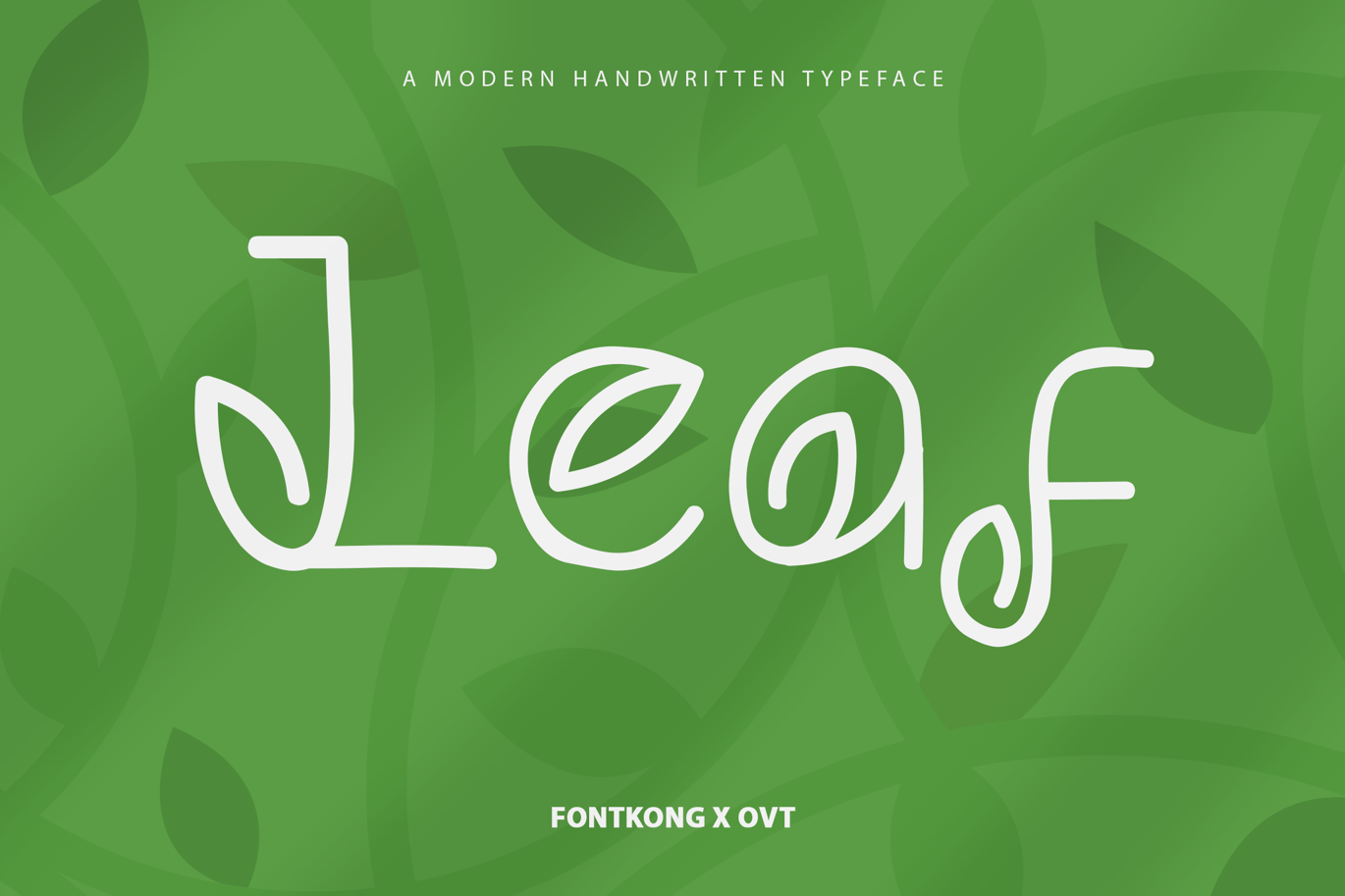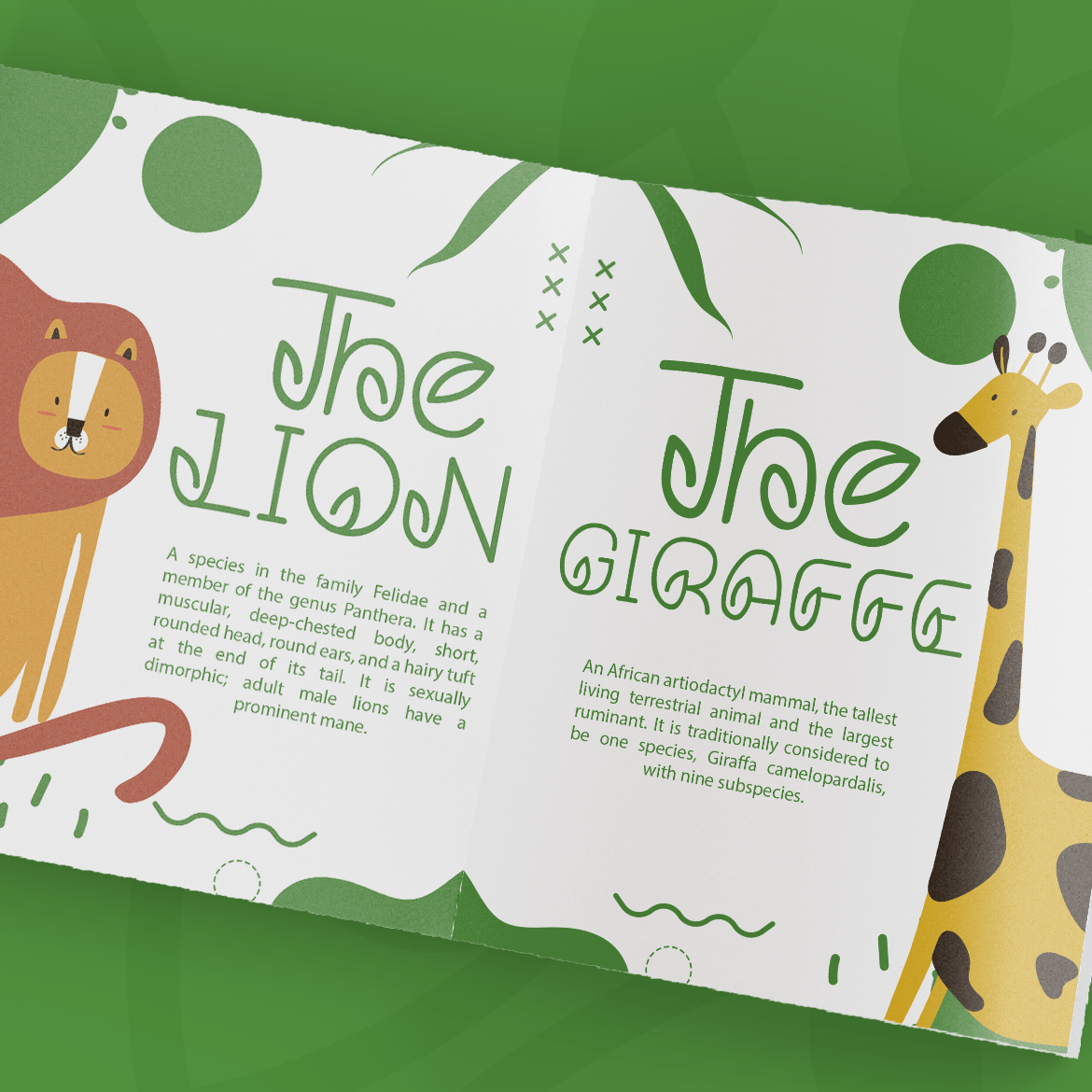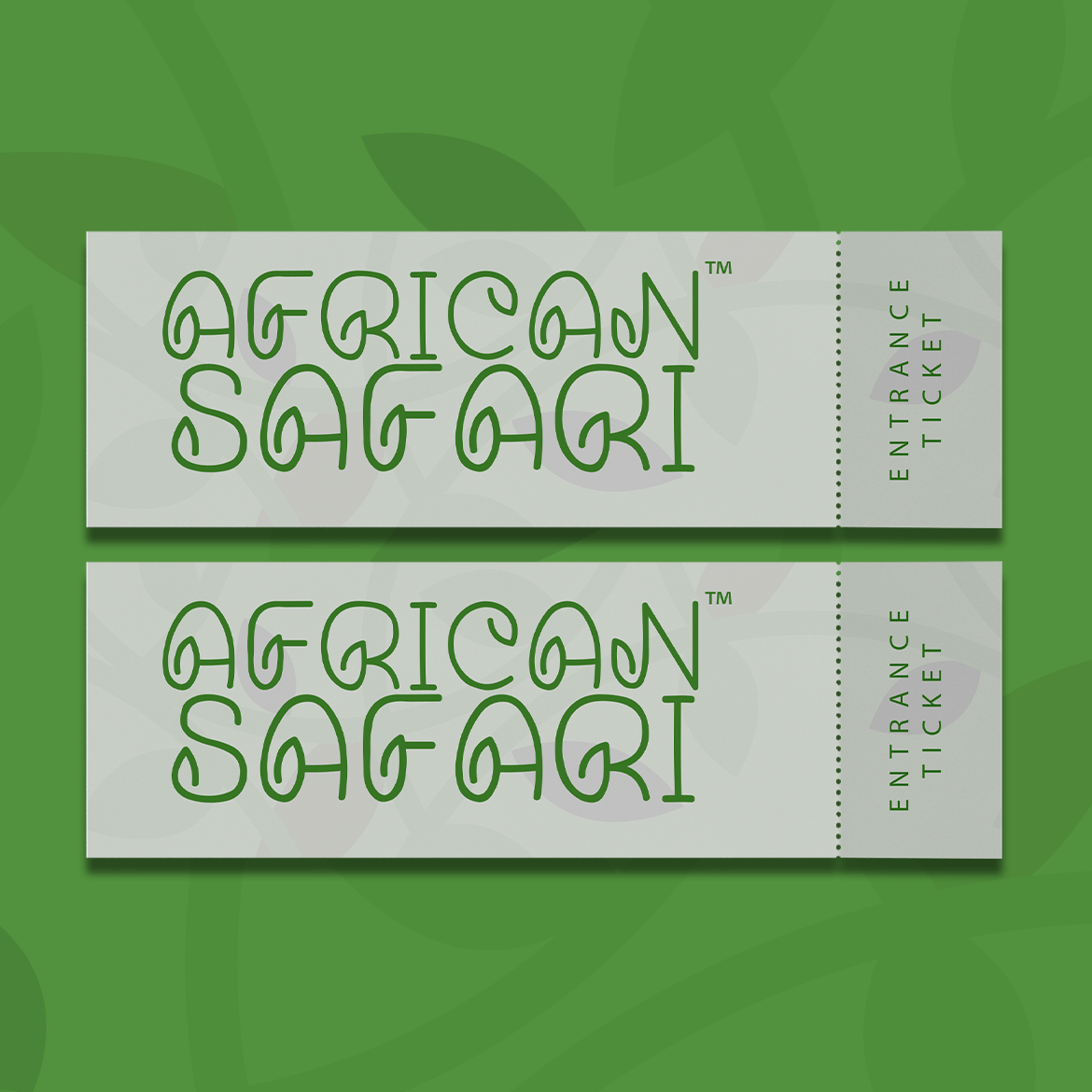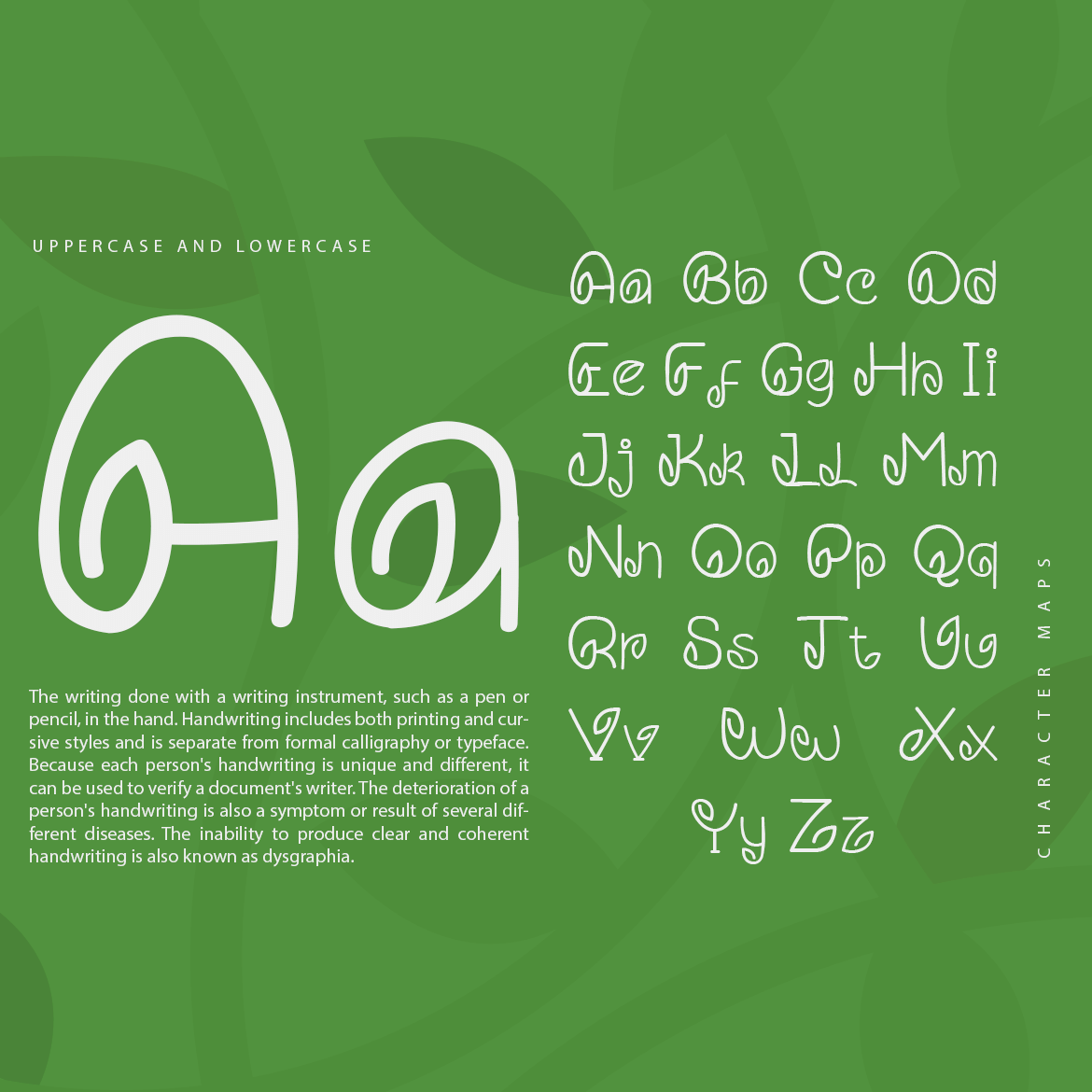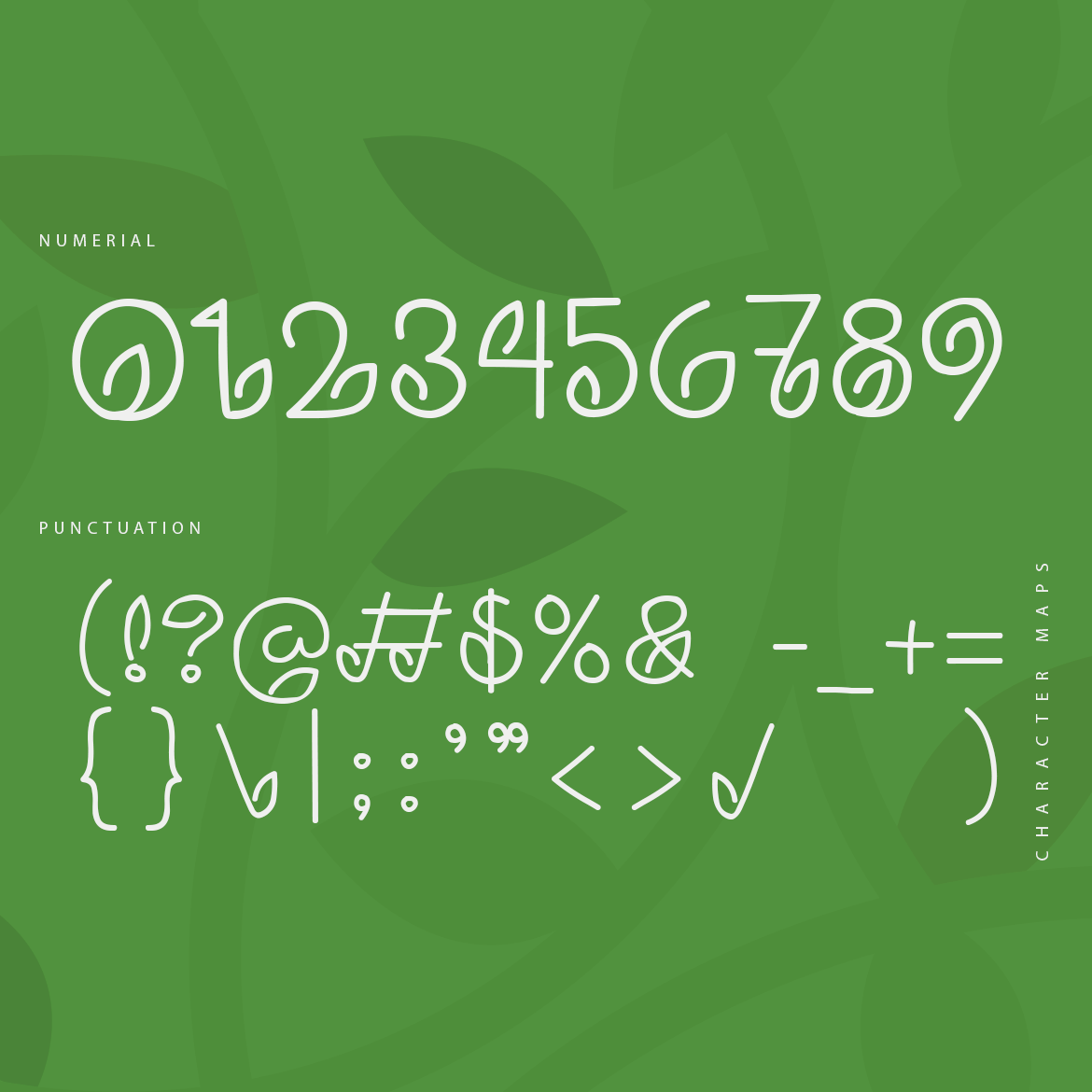
Leaf – Modern Handwritten Typeface
Introducing “Leaf,” a modern handwritten typeface designed to bring a touch of natural beauty and personal charm to your projects. With its fluid strokes and organic feel, Leaf adds an authentic handwritten touch, perfect for adding warmth and character to any design.
Ideal for a variety of creative applications, Leaf excels in crafting captivating logos, heartfelt invitations, engaging social media graphics, and personalized branding. Its versatile design ensures that it complements both casual and formal projects, making it a go-to choice for designers seeking a unique and approachable aesthetic.
Leaf includes a full set of uppercase and lowercase letters, numerals, punctuation marks, and special characters, providing comprehensive support for your creative endeavors. Its modern yet timeless appeal ensures that your designs will stand out with elegance and individuality.
Embrace the essence of handwritten artistry with Leaf, and let your projects flourish with its natural charm and modern sophistication.